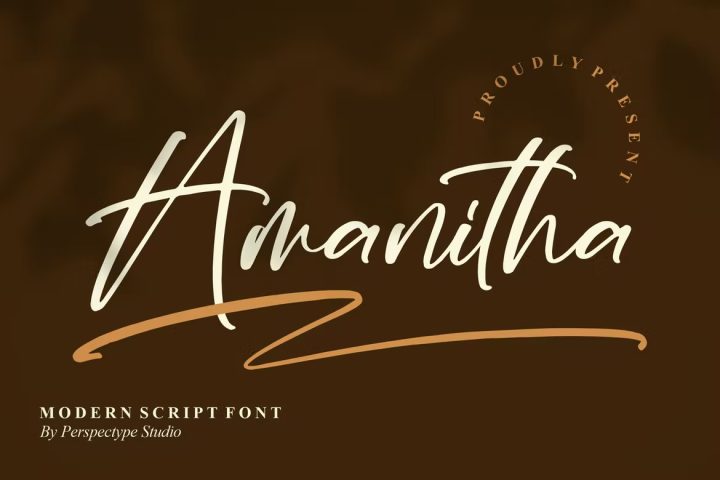
Amanitha Modern Script Font
Hi ladies & gentlemen, this is one of our fonts suitable to complement your digital and printed creative products. This font is perfect for posters, social media posts, branding, personal projects, etc.